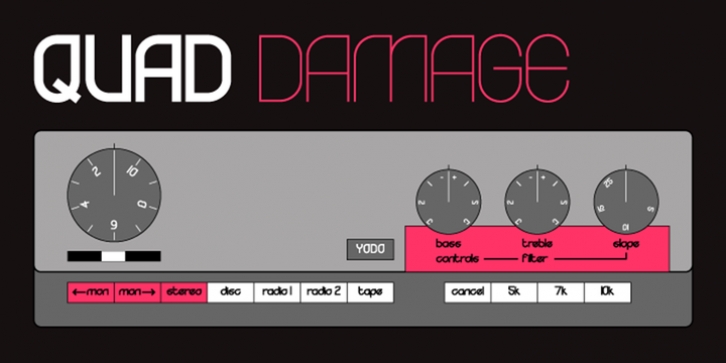
Yodo was designed by Jonathan Hill and published by The Northern Block Ltd. Yodo contains 3 styles and family package options.
A geometric typeface that combines elegant curves with precise angles.
The contemporary nature of this font will compliment a wide variety of graphic design applications. Details include 3 weights, a full character set, manually edited kerning and Euro symbol.